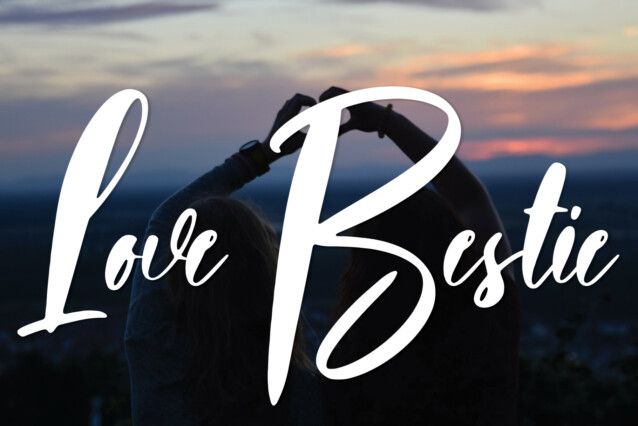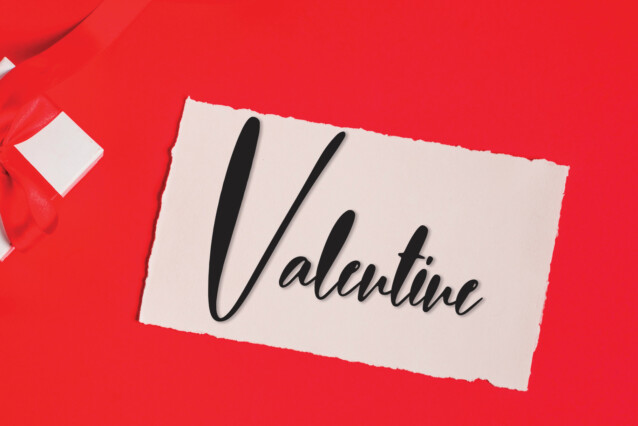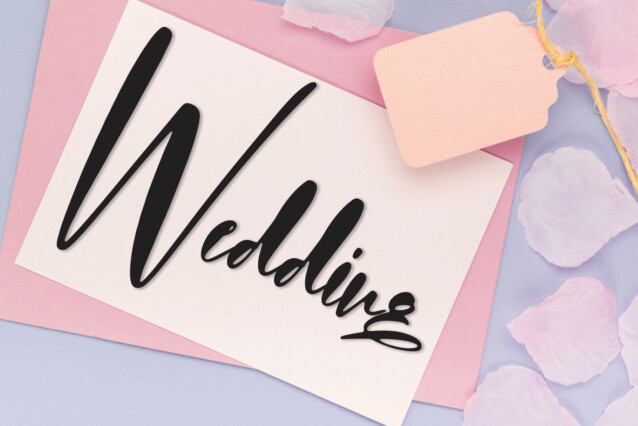
Photographer Script Font
Photographer Script Font is a modern and creative handwritten typeface. Dainty and joyful, this font will be ideal for writing wedding invitations, cards, or any other design that may need a romantic, personalized touch! Don’t hesitate to add it to your creative projects and be amazed by the fantastic results!